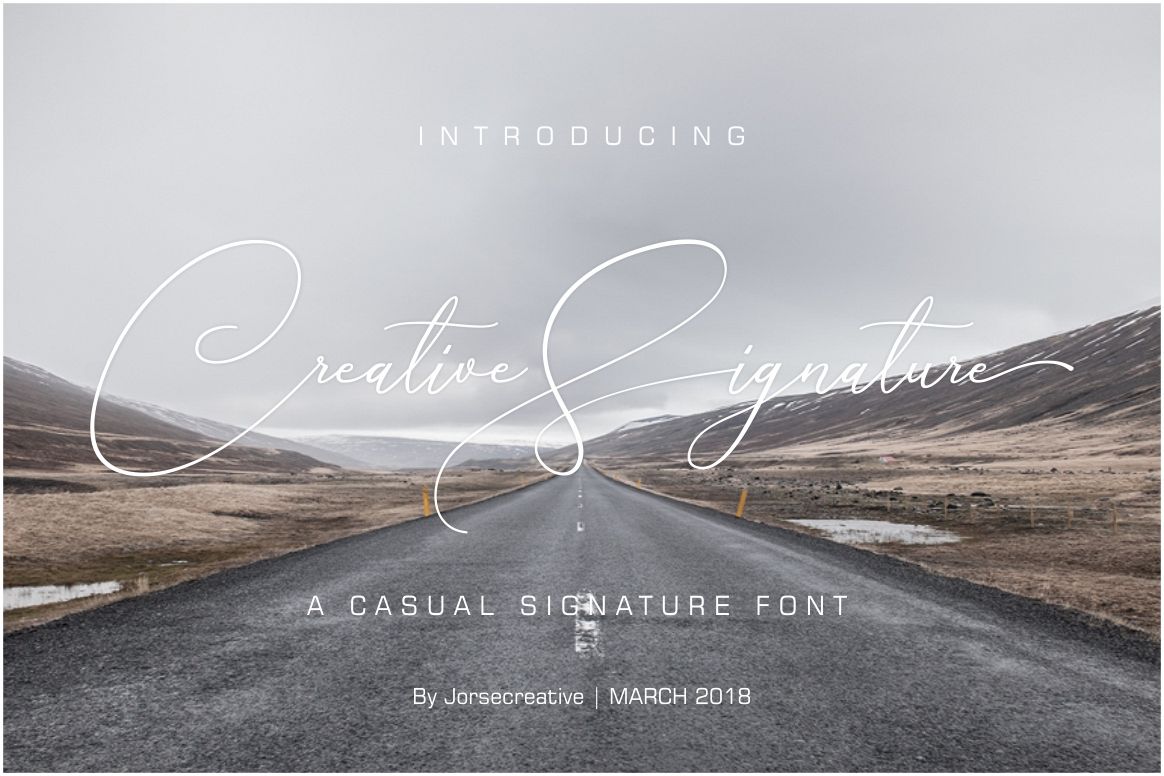
Creative Signature Font
Creative Signature a work that is purely handwritten, has its own characteristics. This is perfect for invitations, signatures, blogs, social media, business cards, product brands, etc.Creative Signature has style standard, Alternate Stylistic and ligatures. and includes uppercase and lowercase letters, numbers and punctuation.